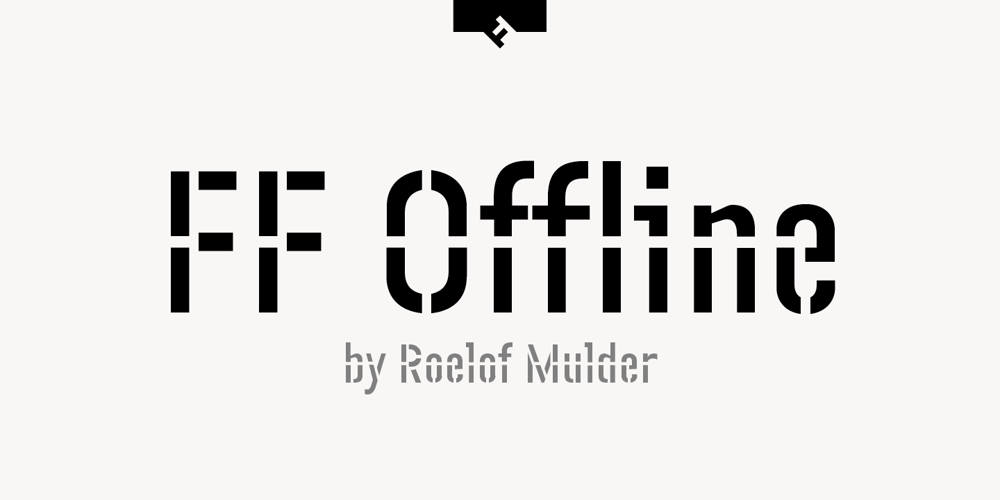
FF Offline Font Family was designed by Roelof Mulder and published by FontFont. FF Offline contains 5 styles and family package options. Dutch type designer Roelof Mulder created this display FontFont in 1996. The family has 5 weights, ranging from Light to Bold and is ideally suited for poster and billboards. FF Offline provides advanced typographical support with features such as ligatures and case-sensitive forms. It comes with proportional oldstyle and proportional lining figures.